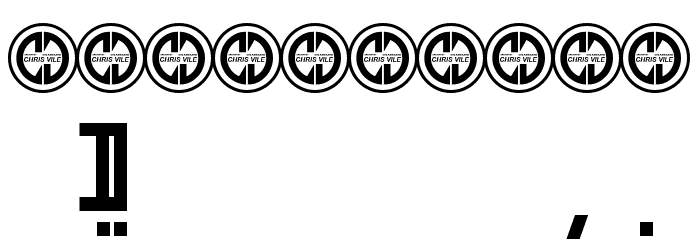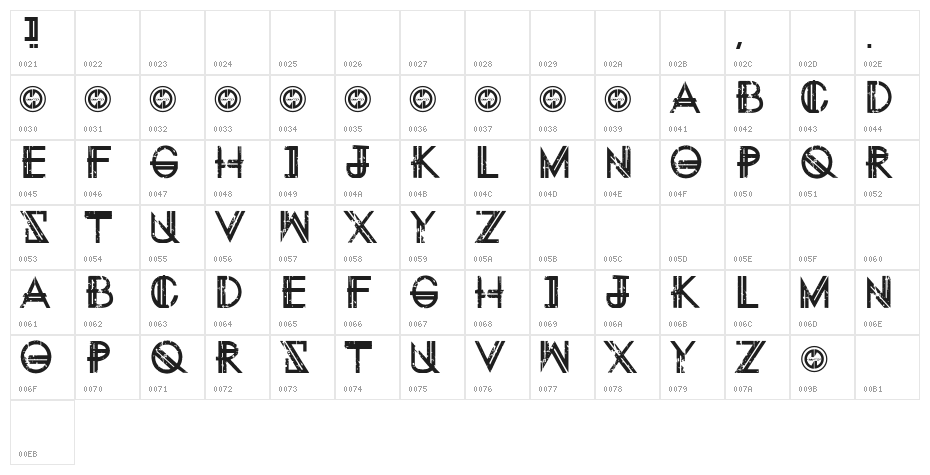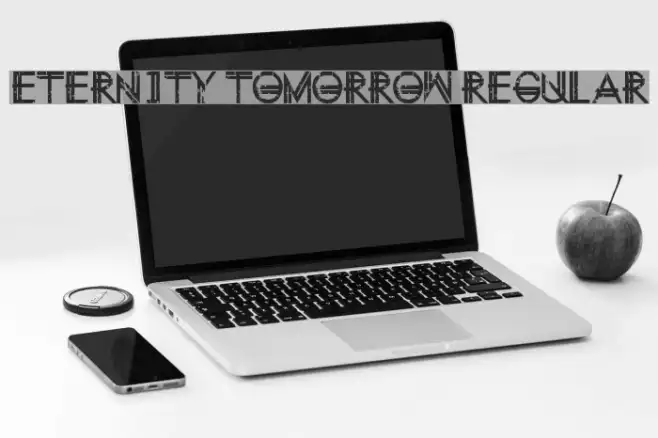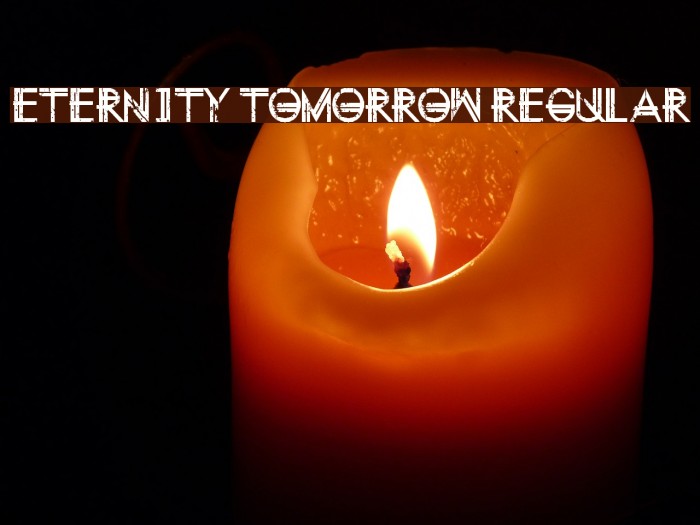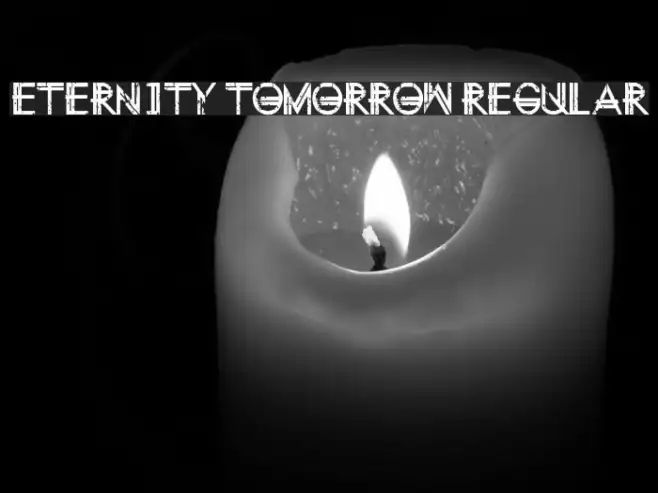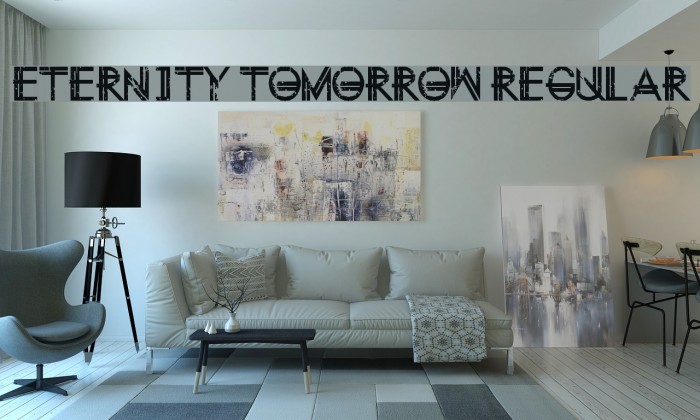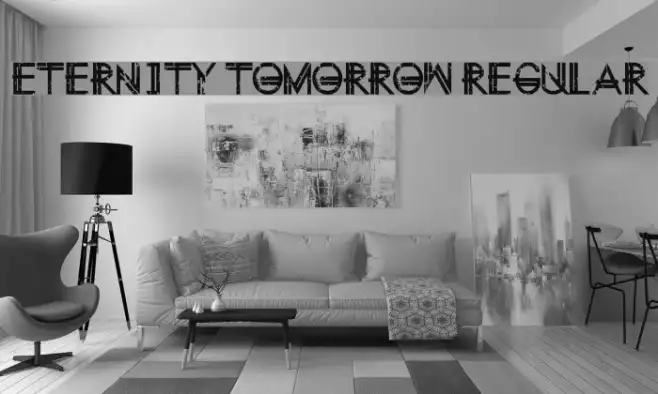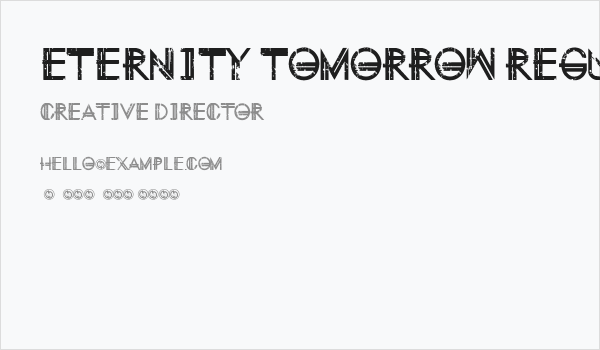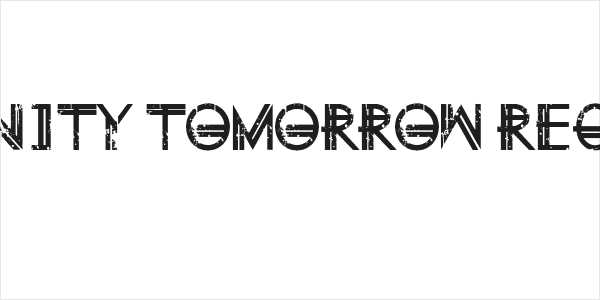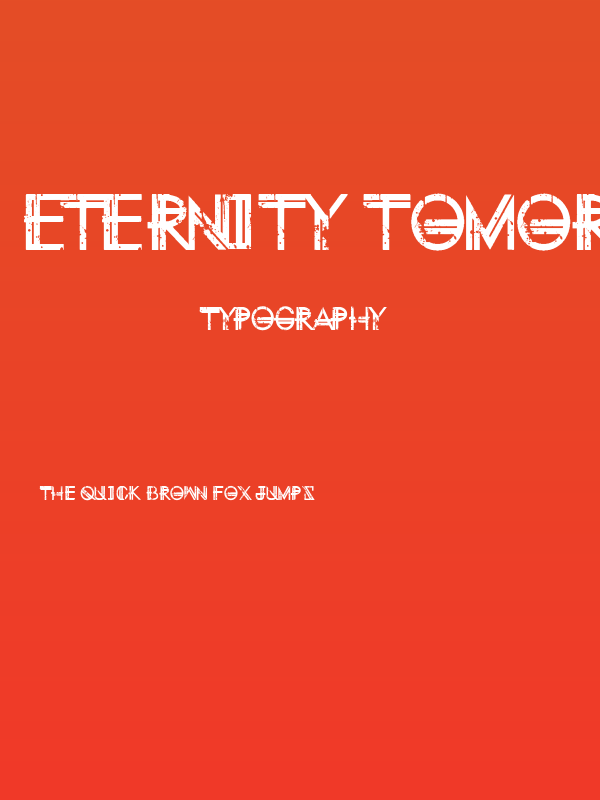
Eternity Tomorrow Regular Font
Eternity Tomorrow Regular Description
This font features a distressed, grunge aesthetic with a modern twist. The characters are bold and angular, with a unique texture that gives them a worn, weathered appearance. The uppercase letters are particularly striking, with sharp edges and a slightly futuristic feel. The lowercase letters maintain the same style, ensuring consistency across the typeface. The numbers and special characters are equally distinctive, making this font versatile for various design needs. Its edgy, urban vibe makes it perfect for projects that require a bold statement.
| Overall Style | Modern, Grunge |
| Proposed Projects | Ideal for album covers, posters, urban-themed branding, and edgy graphic designs. |